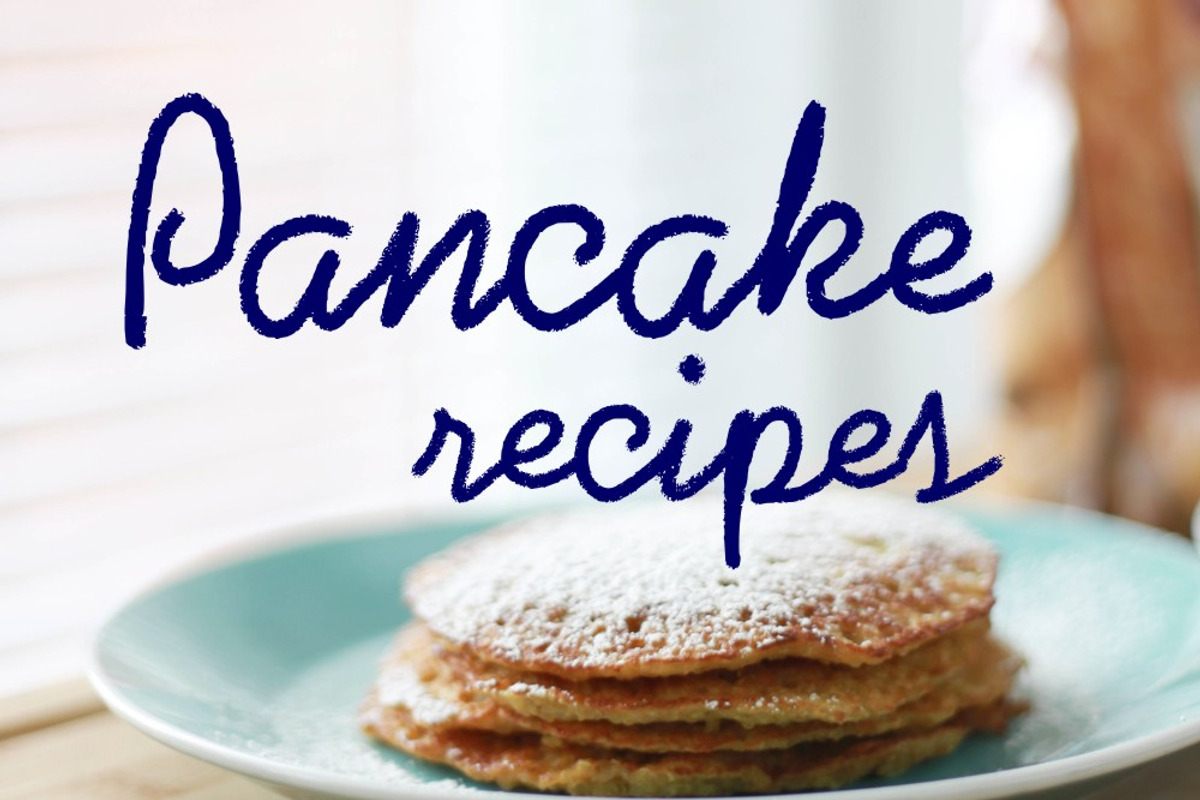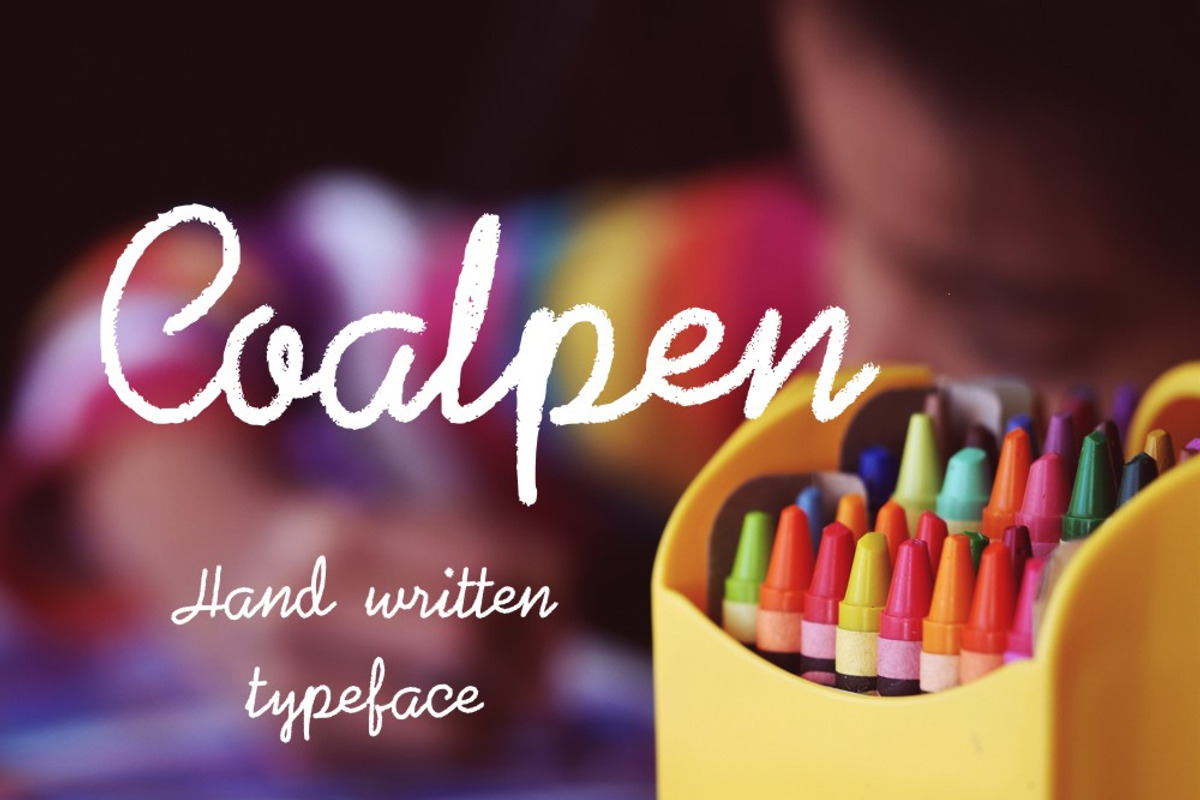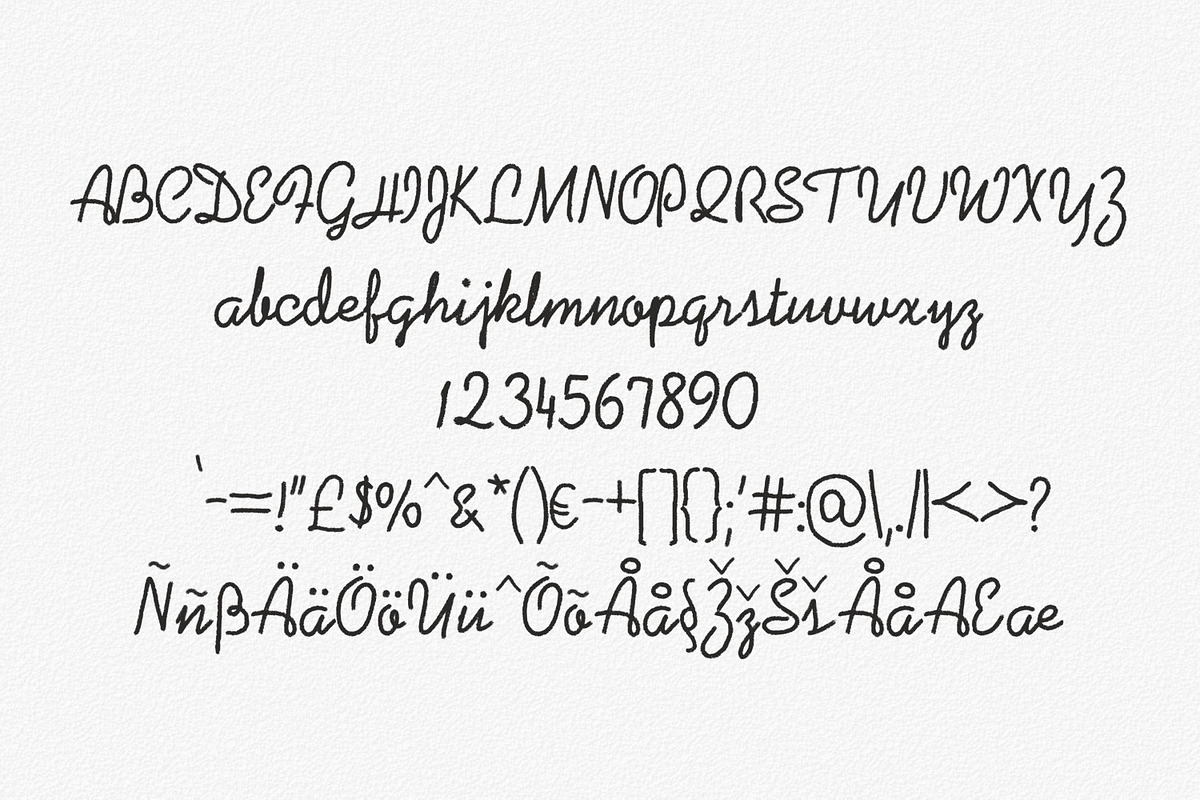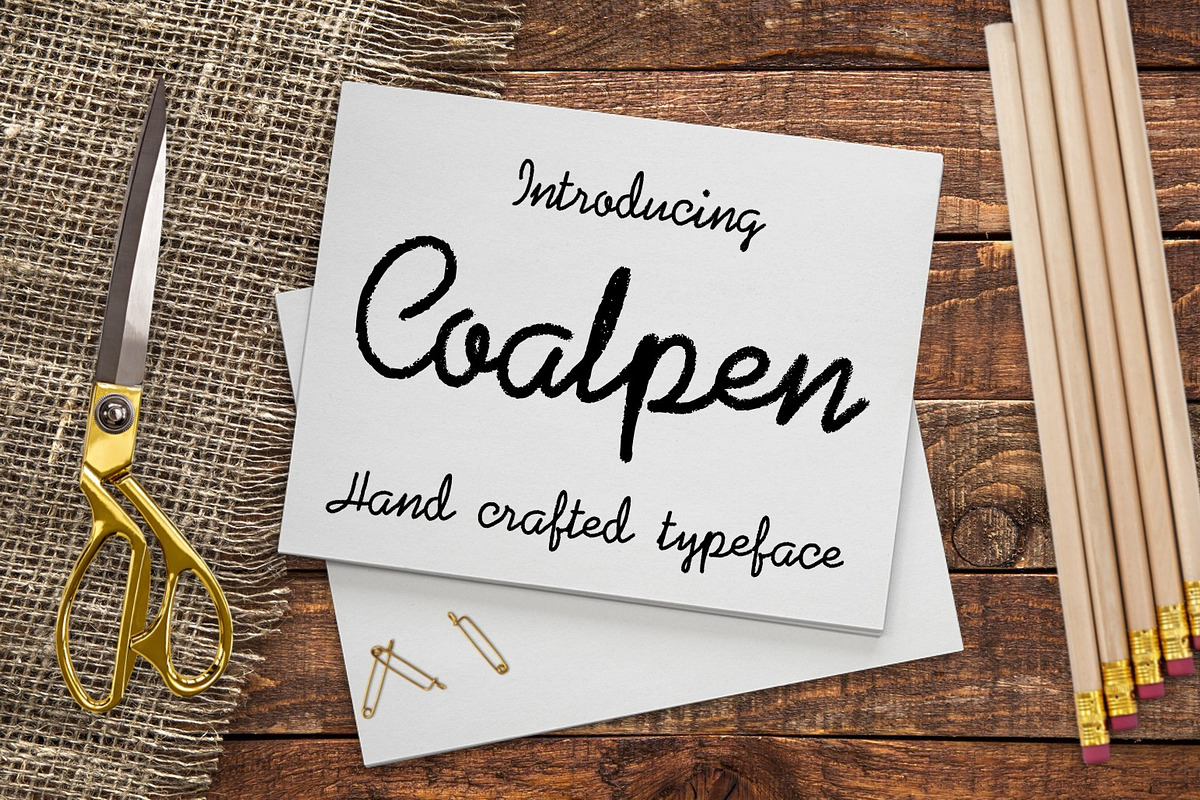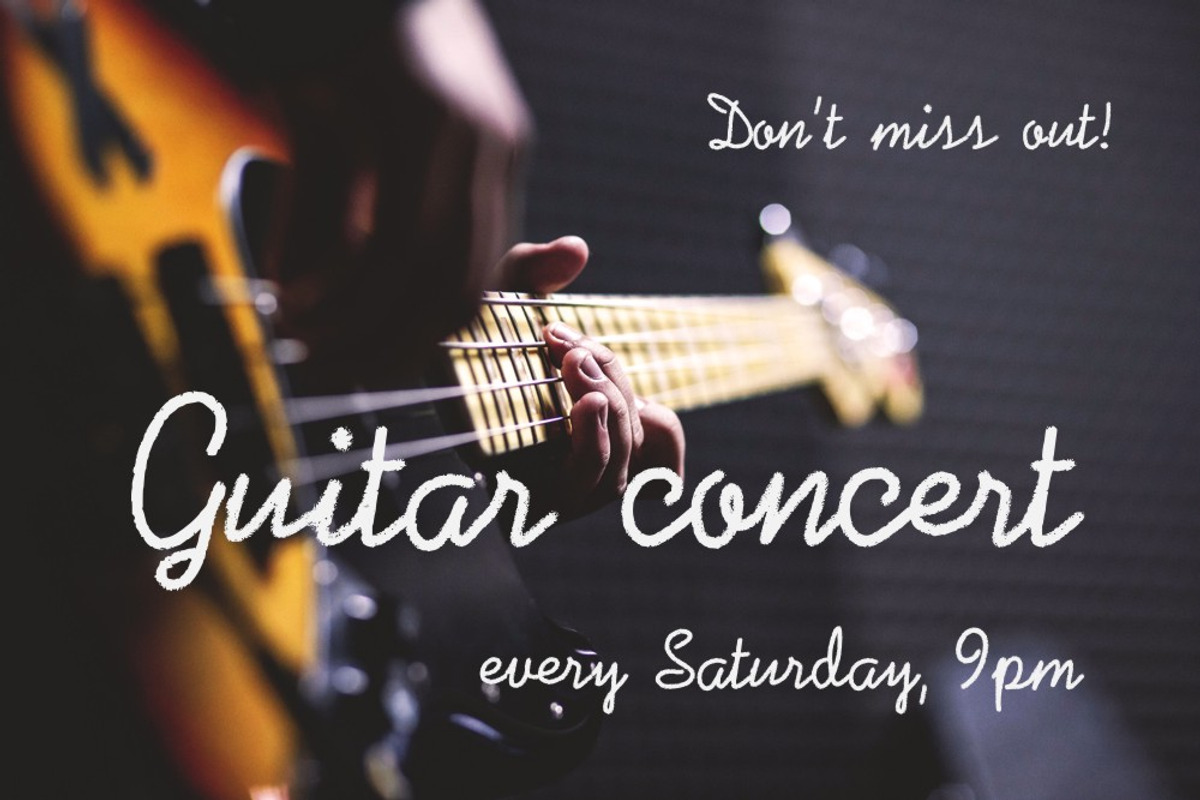
Coalpen Handwritten Font
Coalpen Handwritten Font by Digital Typeface Studio is a font selected for branding, posters, packaging, typography.
Why Coalpen Handwritten Font is worth a look
Coalpen Handwritten Font by Digital Typeface Studio fits naturally into Branding, posters, packaging, typography.